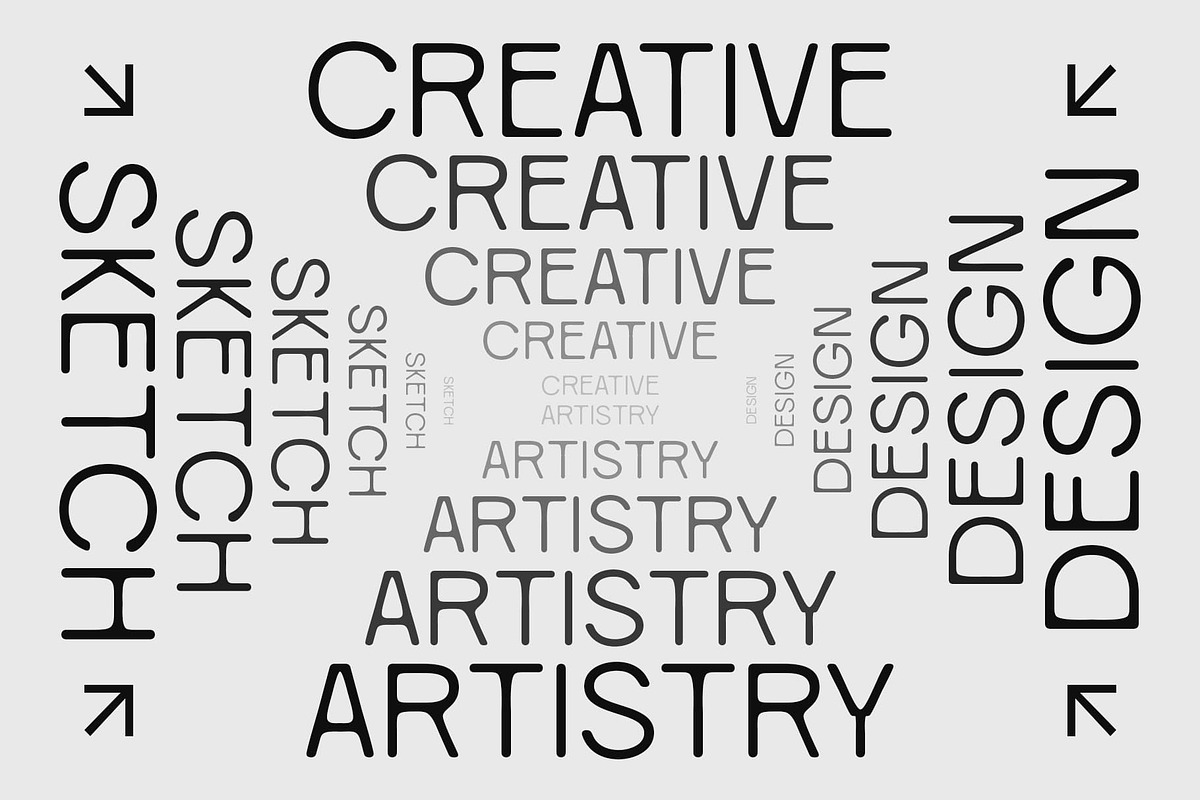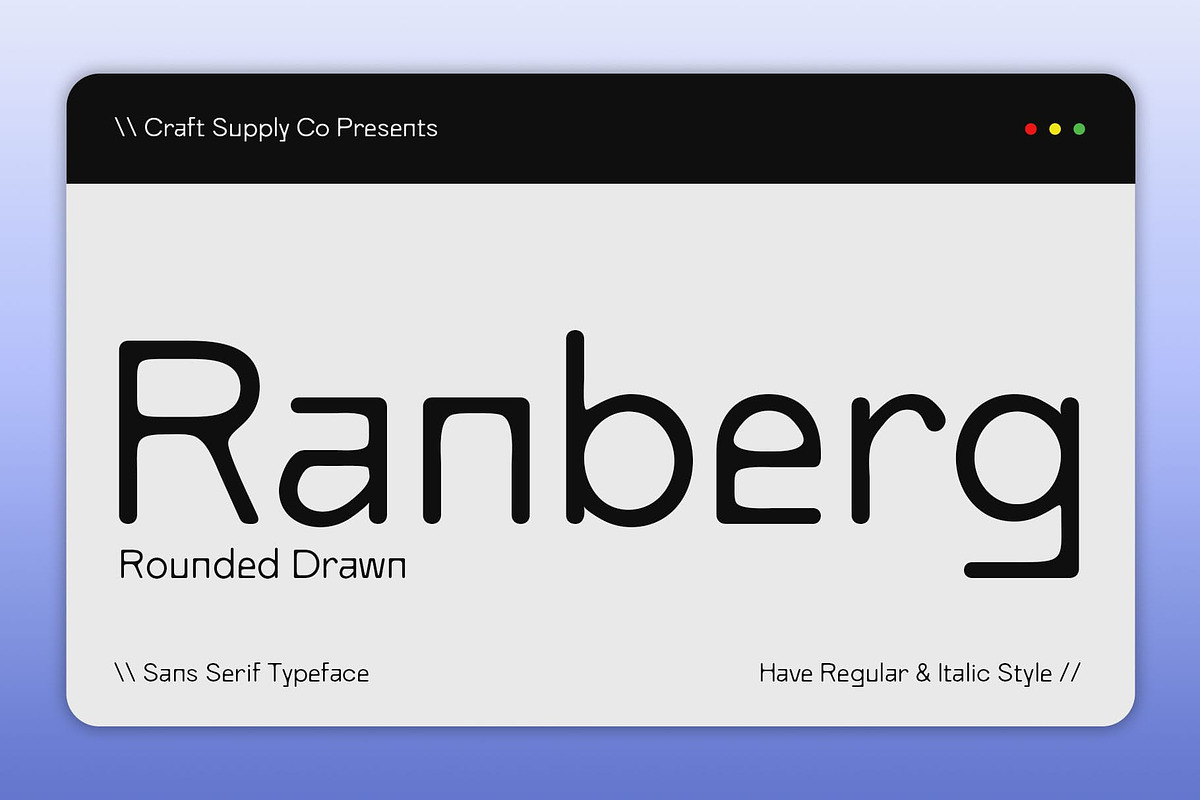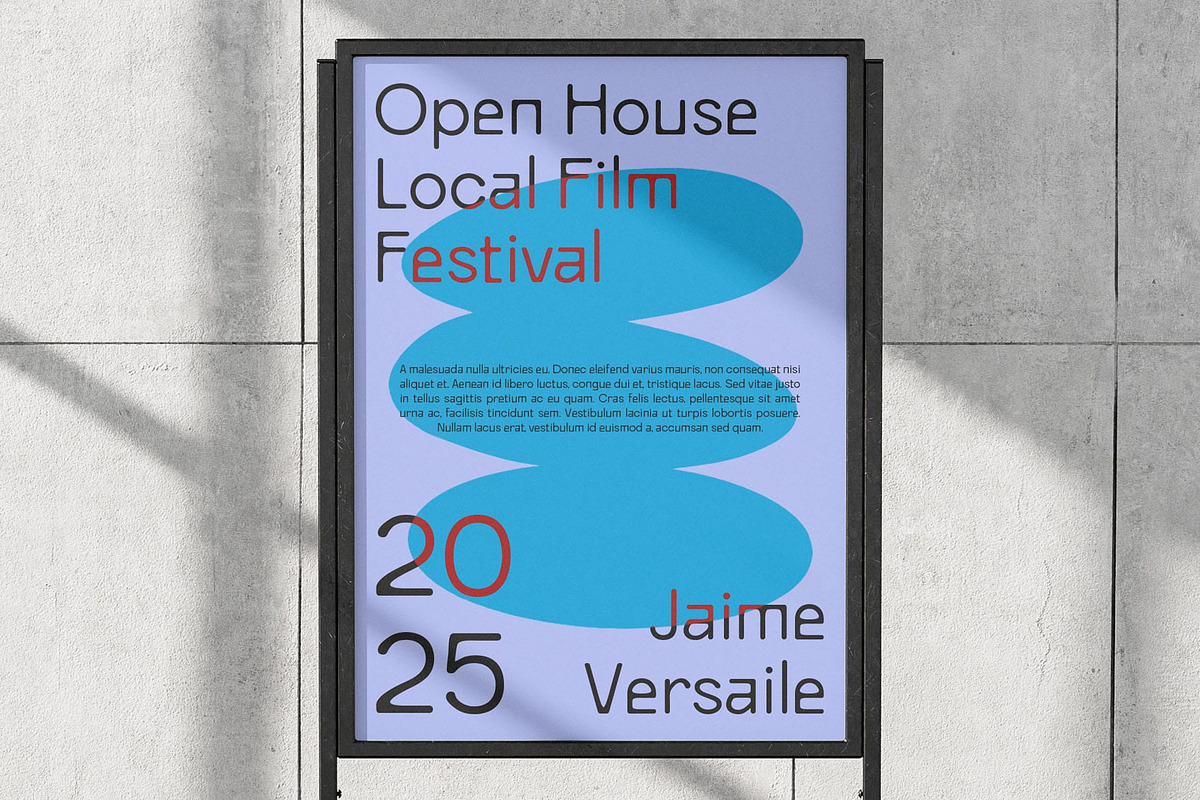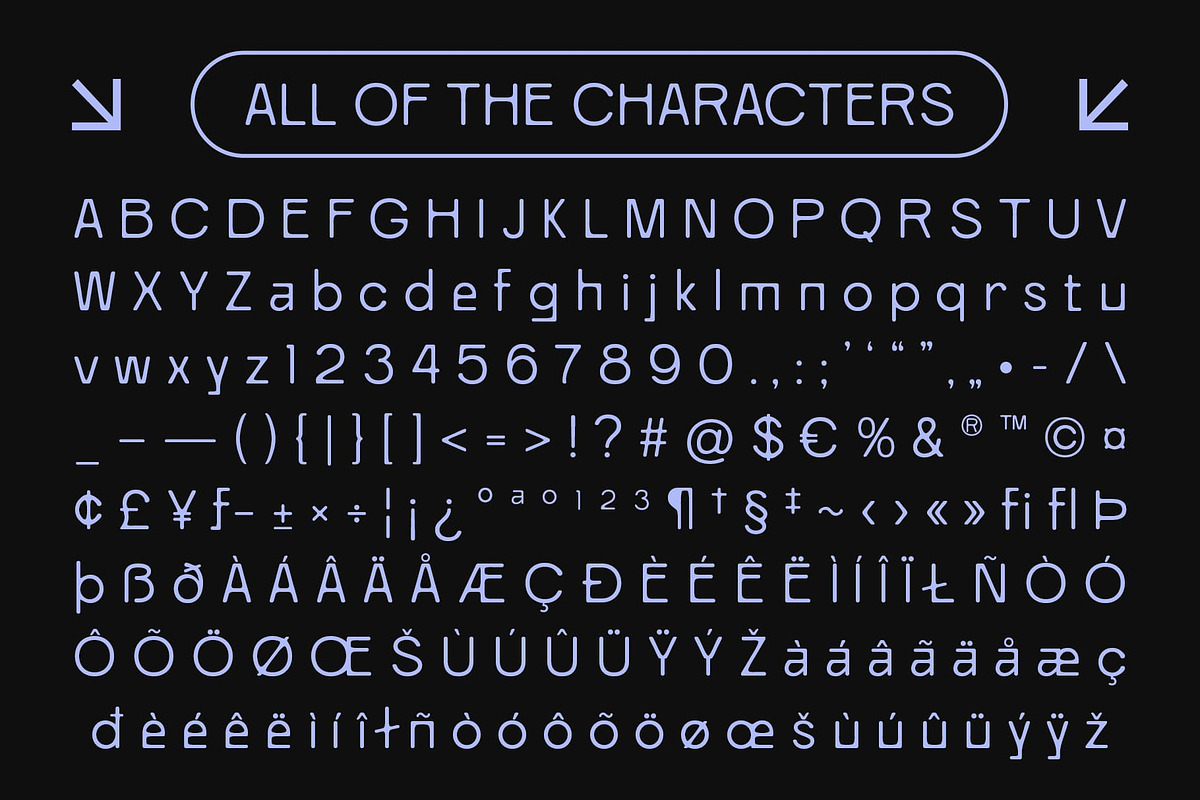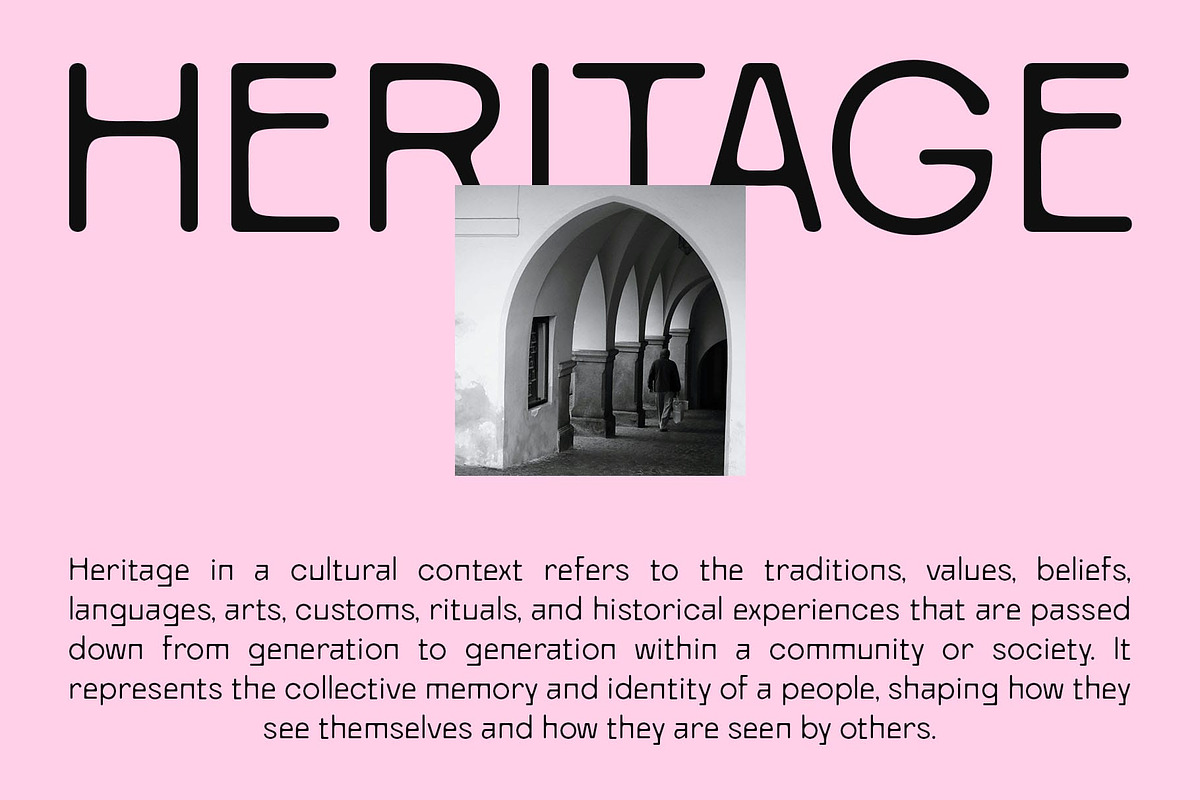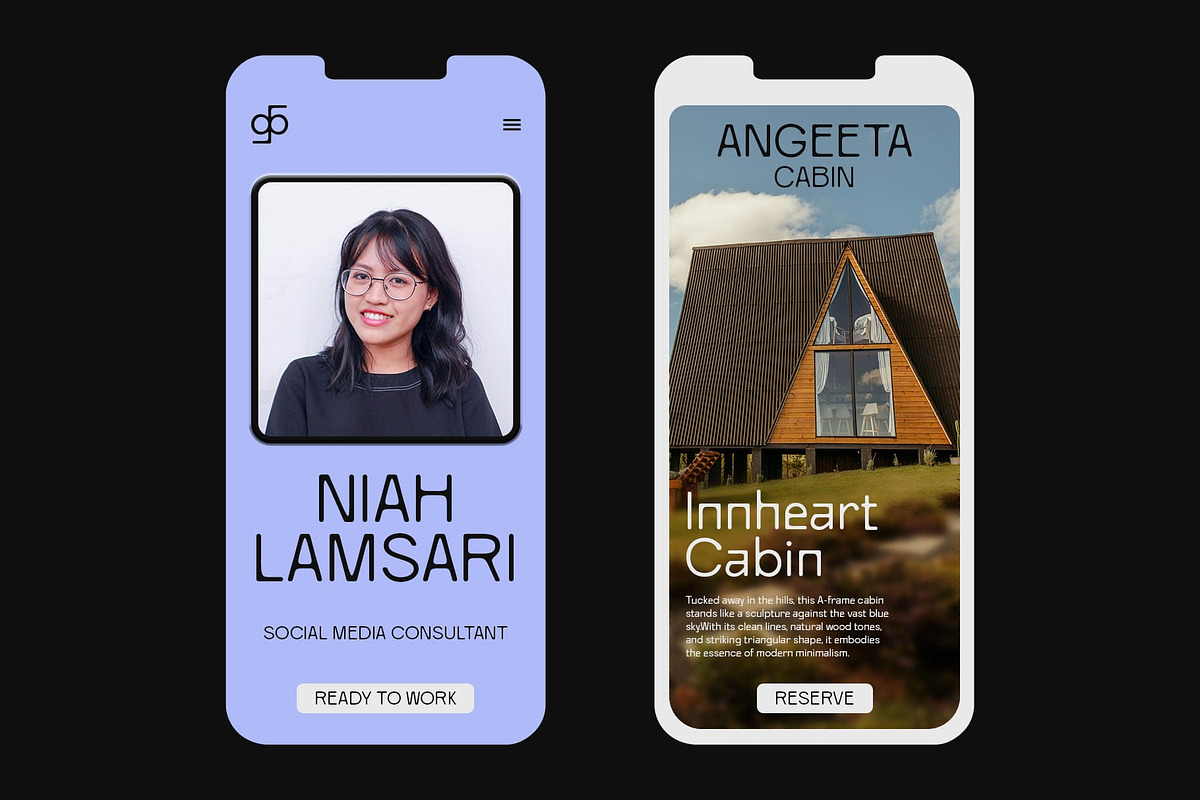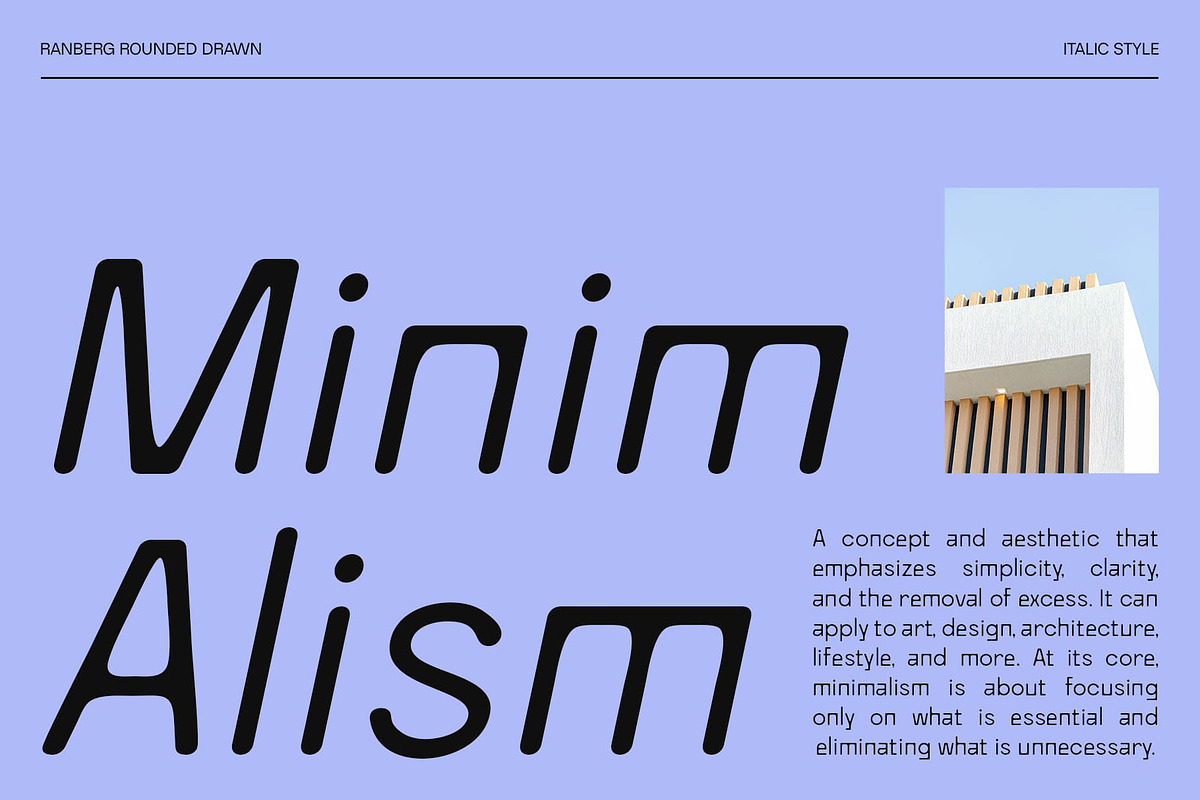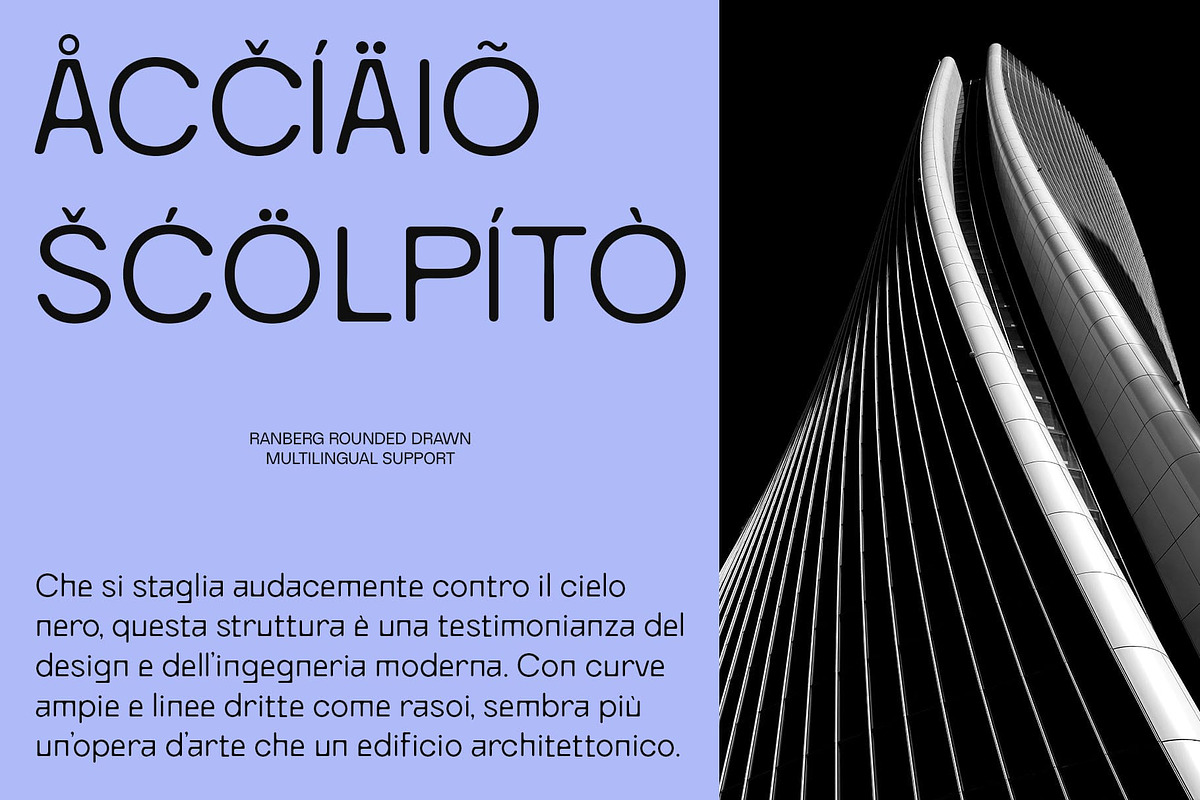
Ranberg Rounded Drawn
Ranberg Rounded Drawn – Clean Geometry with a Handcrafted Heart
Geometric-Grotesque Structure with a Soft Twist This is a modern sans-serif display font that merges geometric-grotesque construction with rounded terminals, resulting in a clean yet inviting appearance. Its well-proportioned, minimalist forms maintain clarity and professionalism, while the soft curves introduce a sense of warmth and approachability.
Rounded Shapes for a Friendly Impression The rounded terminals soften the rigid geometry of the typeface, making it ideal for brands that want to appear accessible, contemporary, and user-friendly. These rounded forms evoke a casual, cheerful tone without sacrificing structure or legibility, perfect for a wide range of design applications.
Handcrafted Texture Adds Expressive Charm The drawn effect lends the font a handcrafted and artistic feel, subtly disrupting the precision of its geometry in favor of a more personal, expressive character. This balance of clean form and human touch makes it both functional and emotionally engaging.
Versatile for Clean, Modern, and Unique Projects This creative font is perfect for modern branding, editorial layouts, creative packaging, tech visuals, or digital interfaces that seek a balance between simplicity and originality. Whether used for headlines or logos, this font brings clarity, friendliness, and a handcrafted vibe to any design.